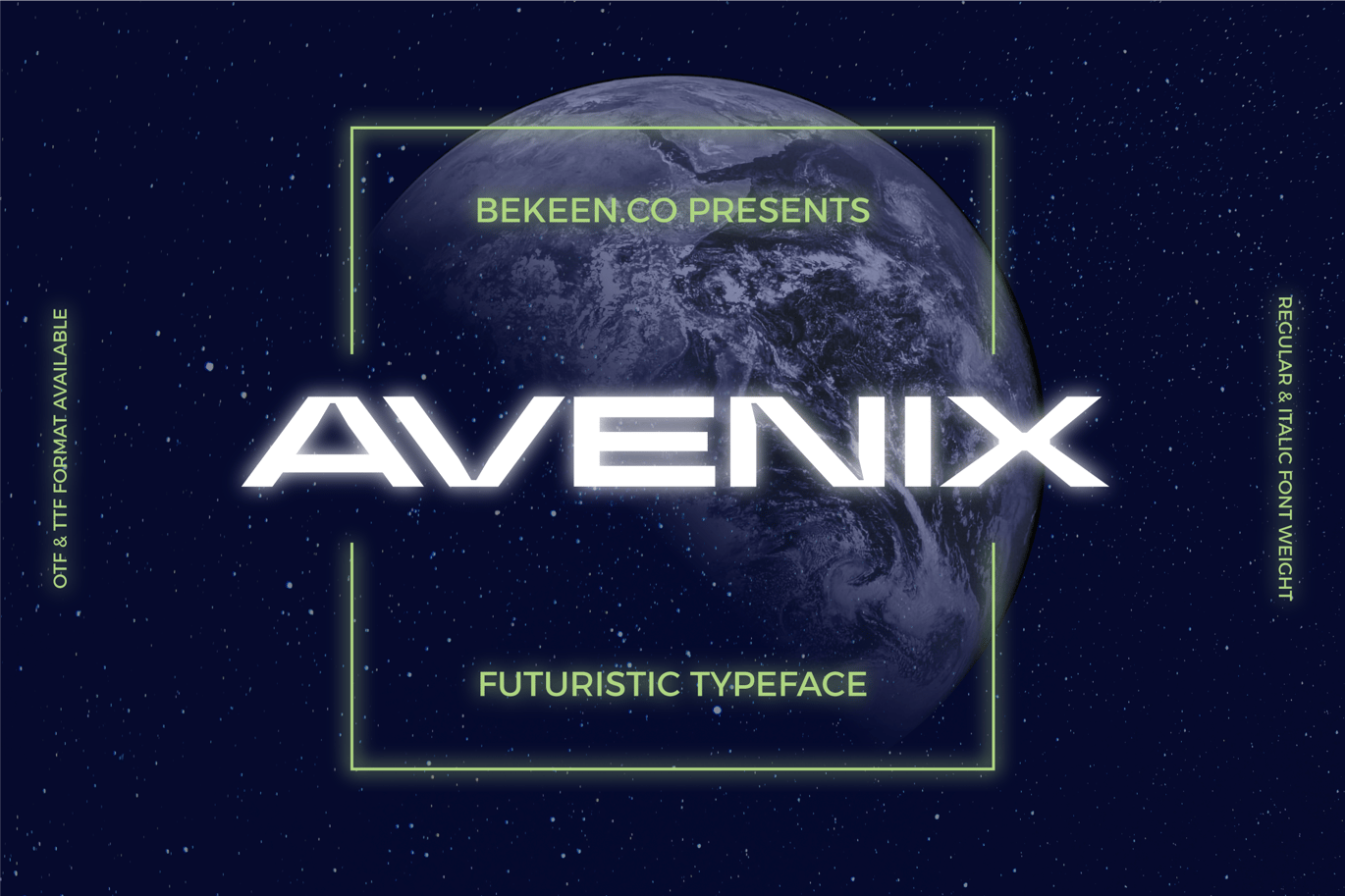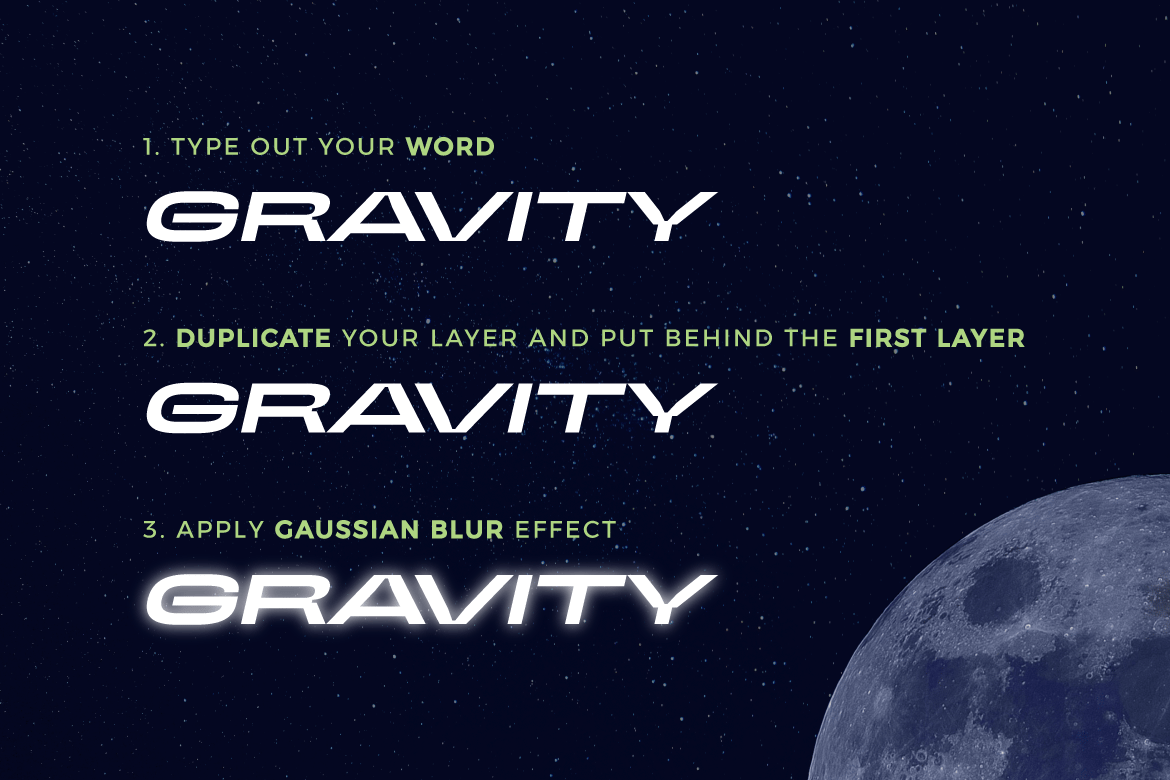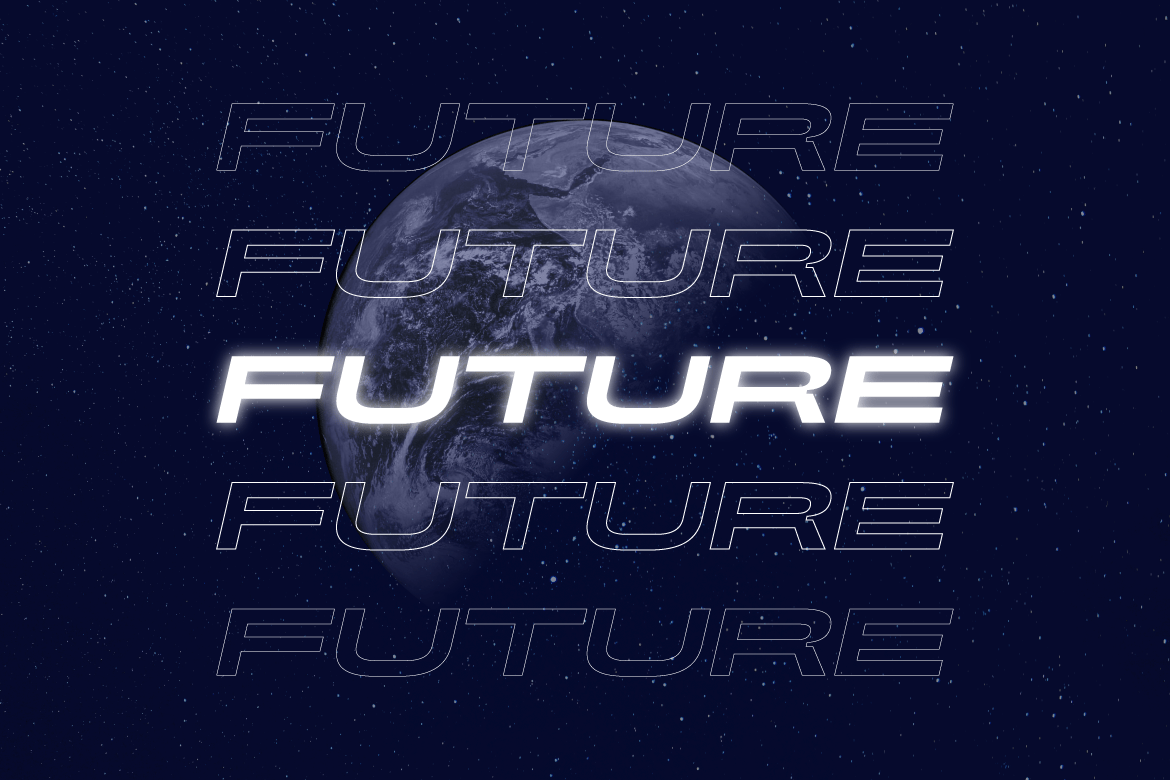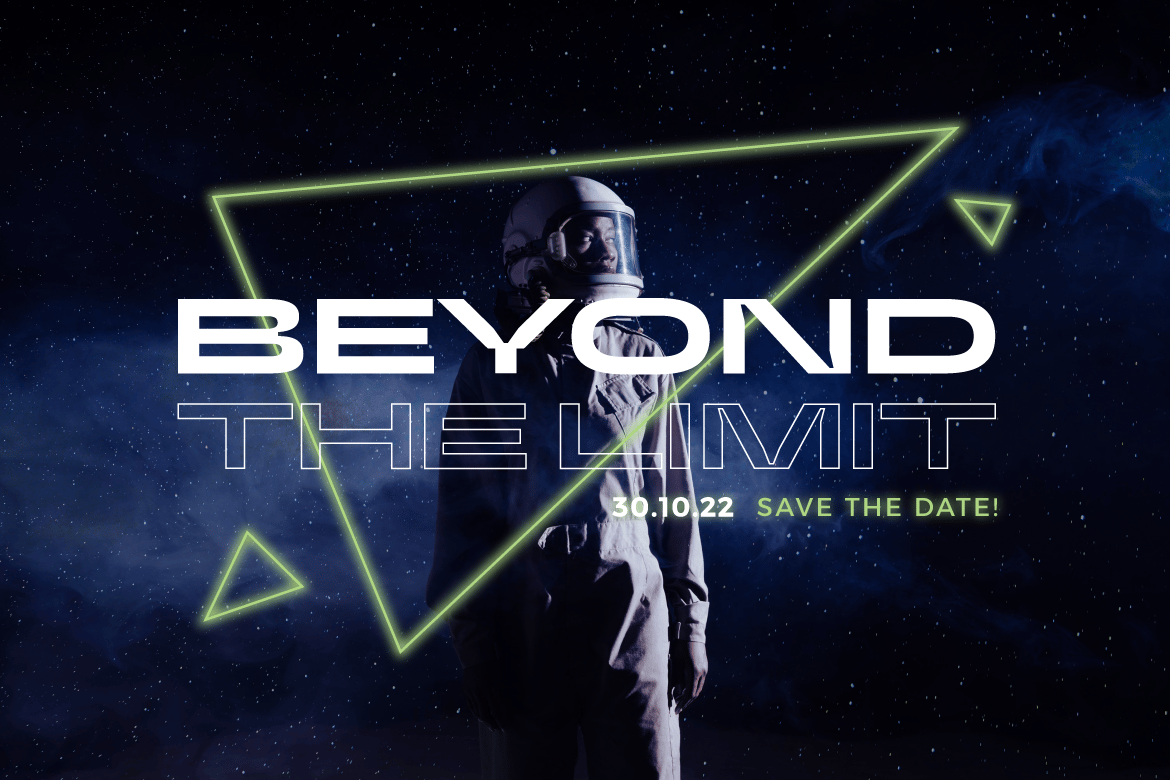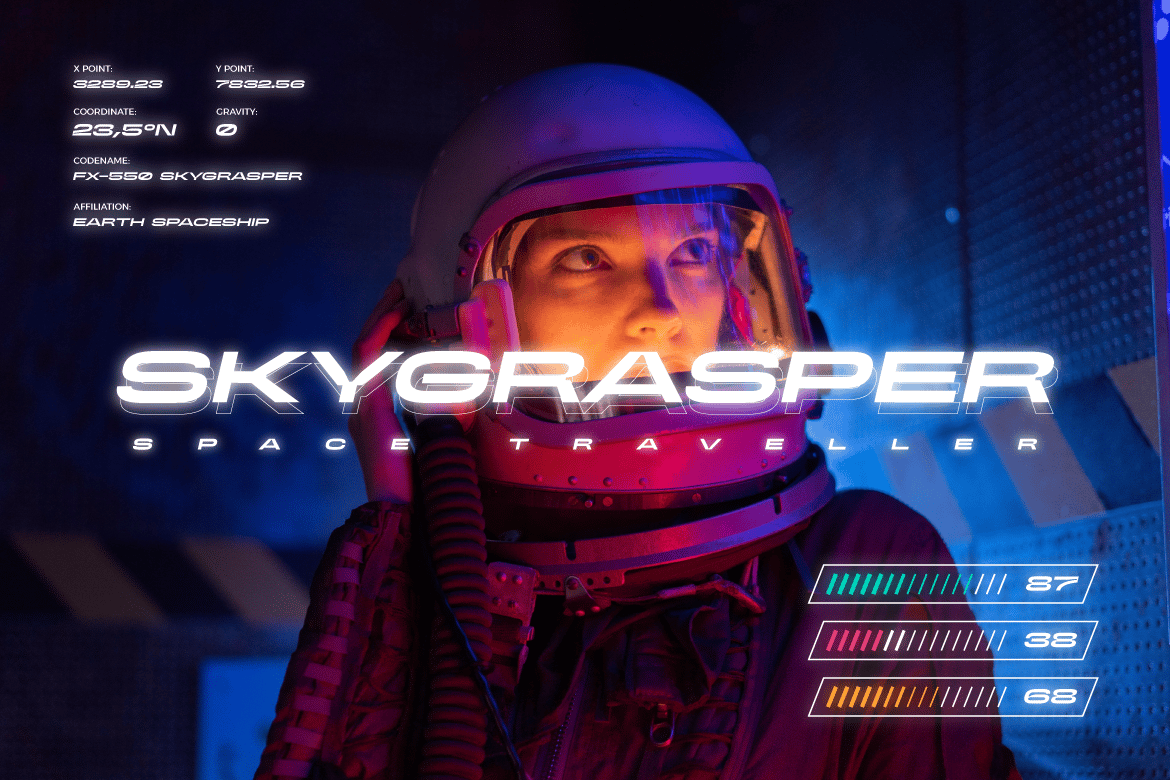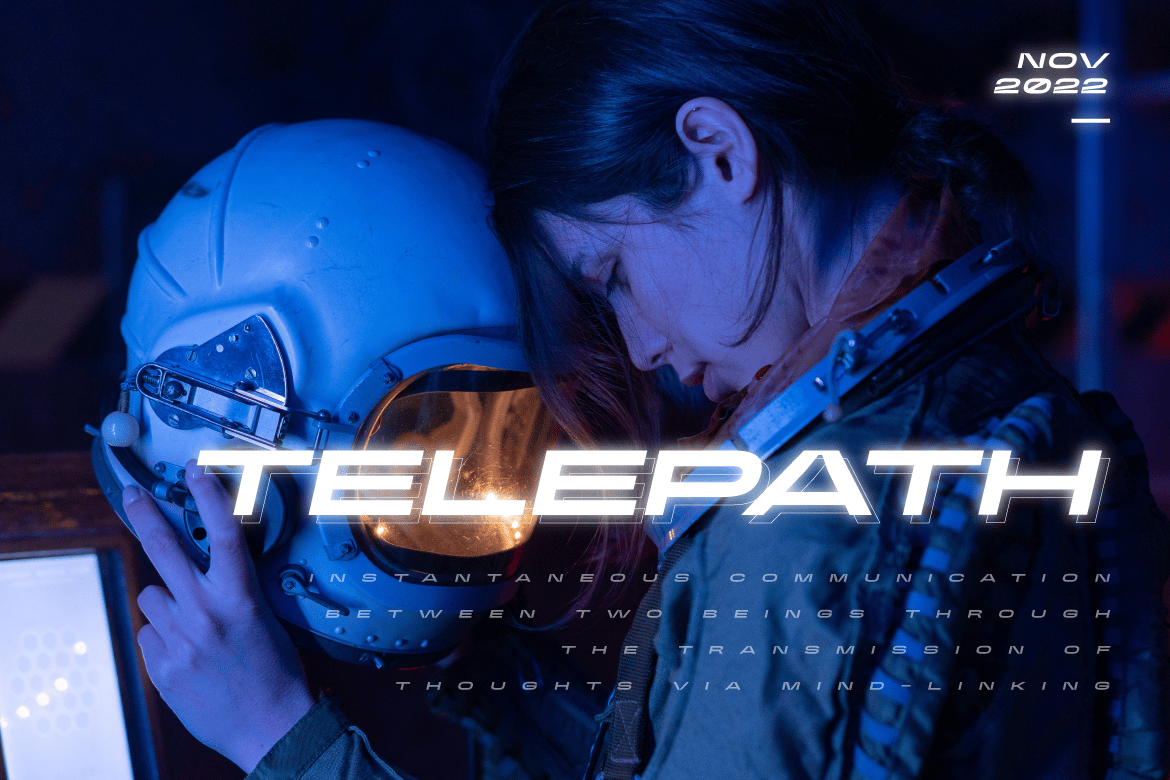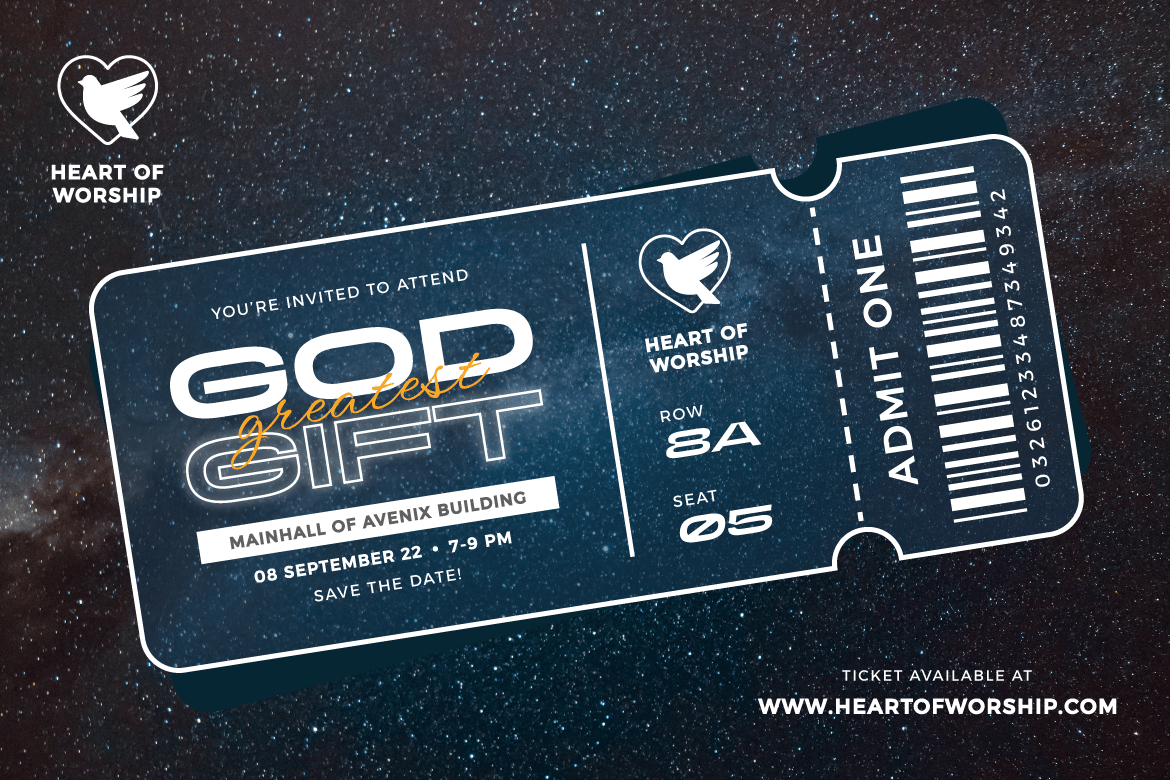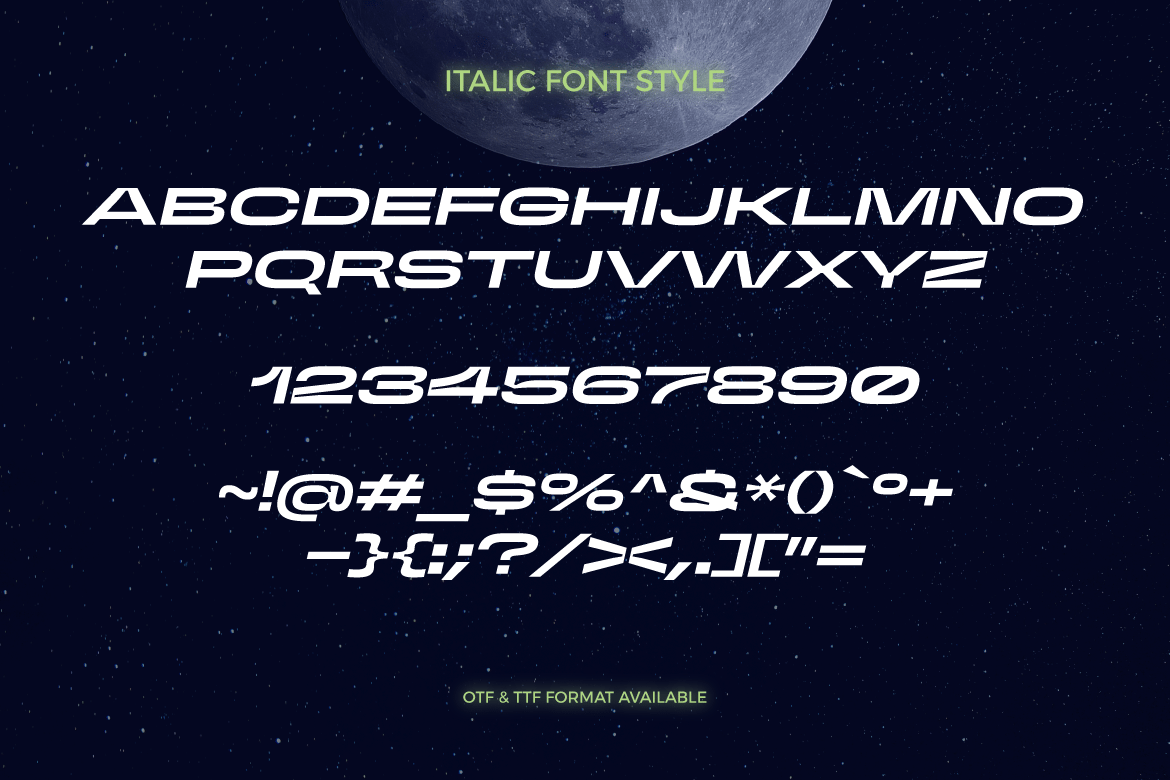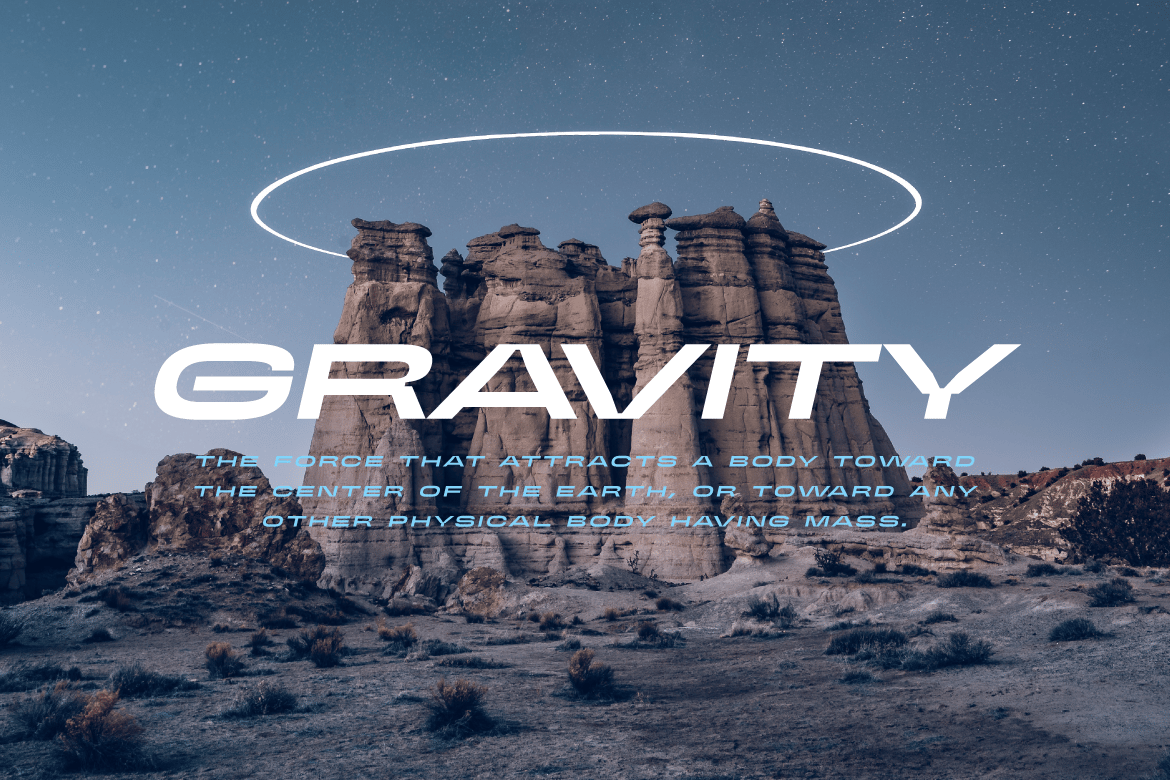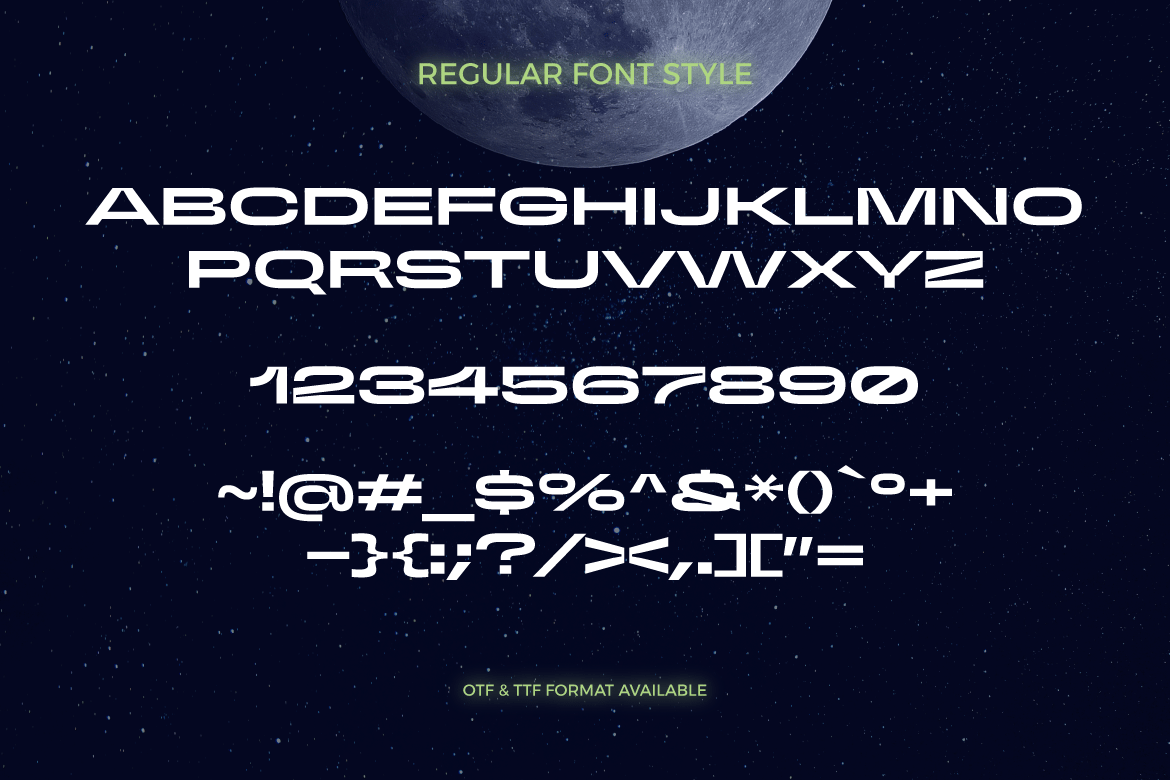
Modern Futuristic Font
Avenix, a clean modern sans serif with futuristic sci-fi vibes. Axenix comes with regular and italic style. It would be perfect for posters, movies, games, headlines, branding, and many more.
- UPPERCASE and lowercase
- Regular and italic style